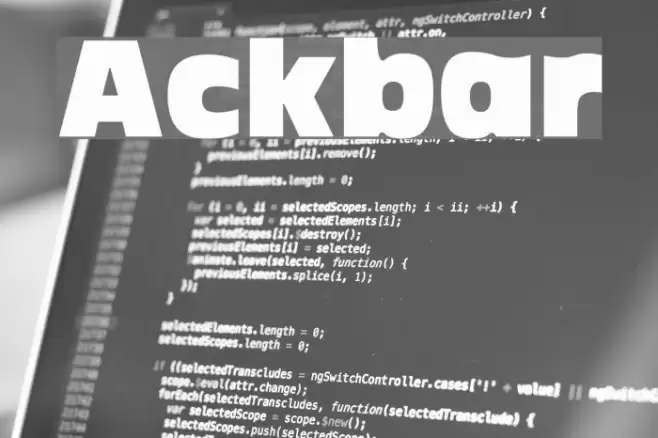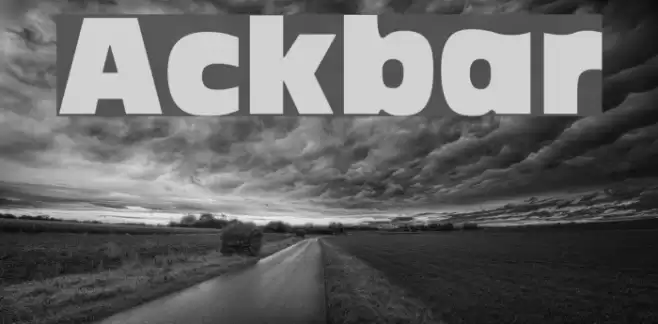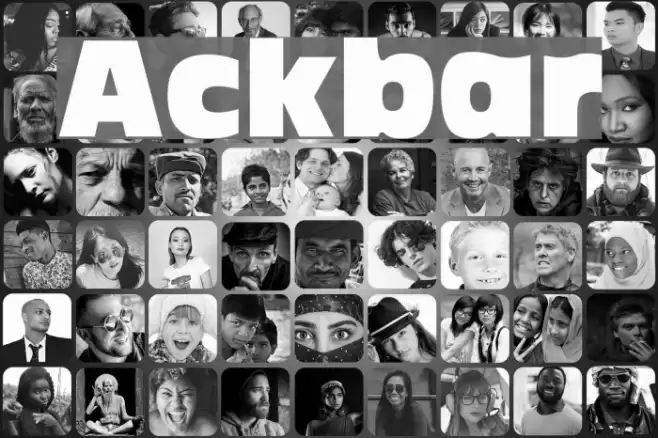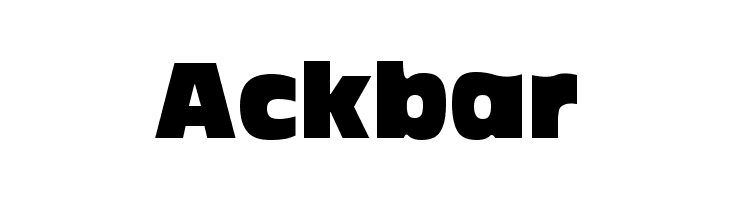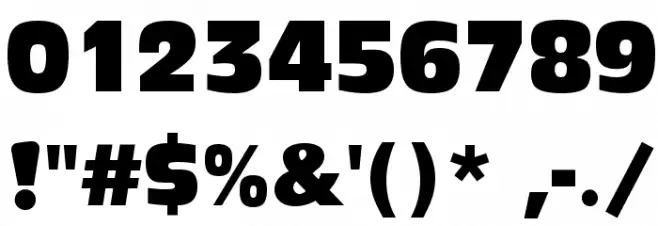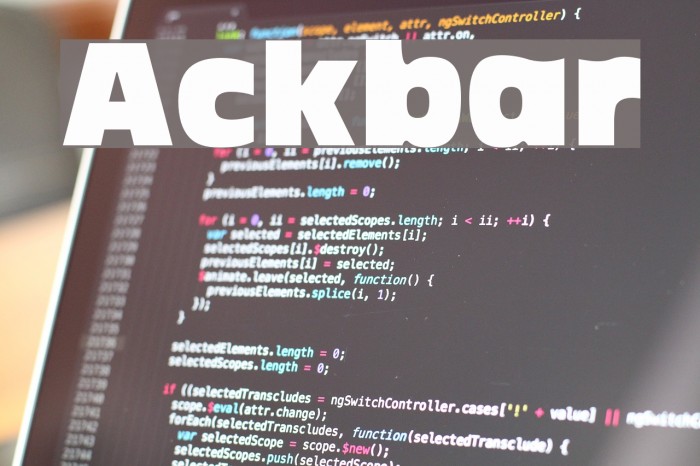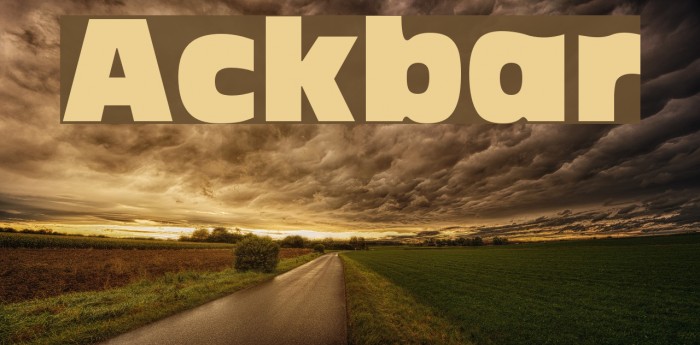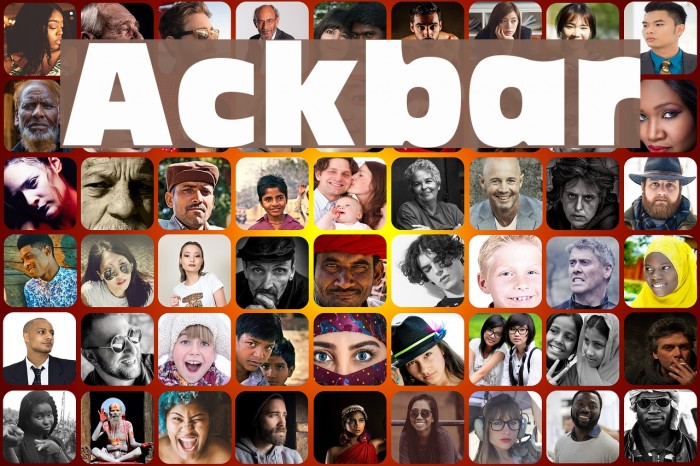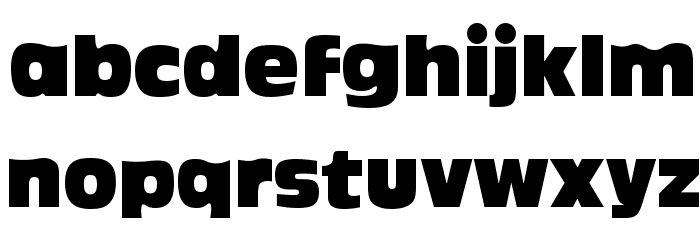
Ackbar Font
Ackbar Description
This font features bold, rounded characters with a strong presence. The uppercase letters are particularly robust, with a uniform thickness that conveys a sense of stability and strength. The lowercase letters maintain this boldness while offering a slightly softer appearance due to their rounded edges. The numerals are equally bold, ensuring they stand out clearly in any context. Special characters are designed with the same weight and rounded style, providing a cohesive look across all glyphs. This font is highly legible and commands attention, making it ideal for impactful designs.
A bold, rounded font with a strong, cohesive presence from Uncategorized fonts.